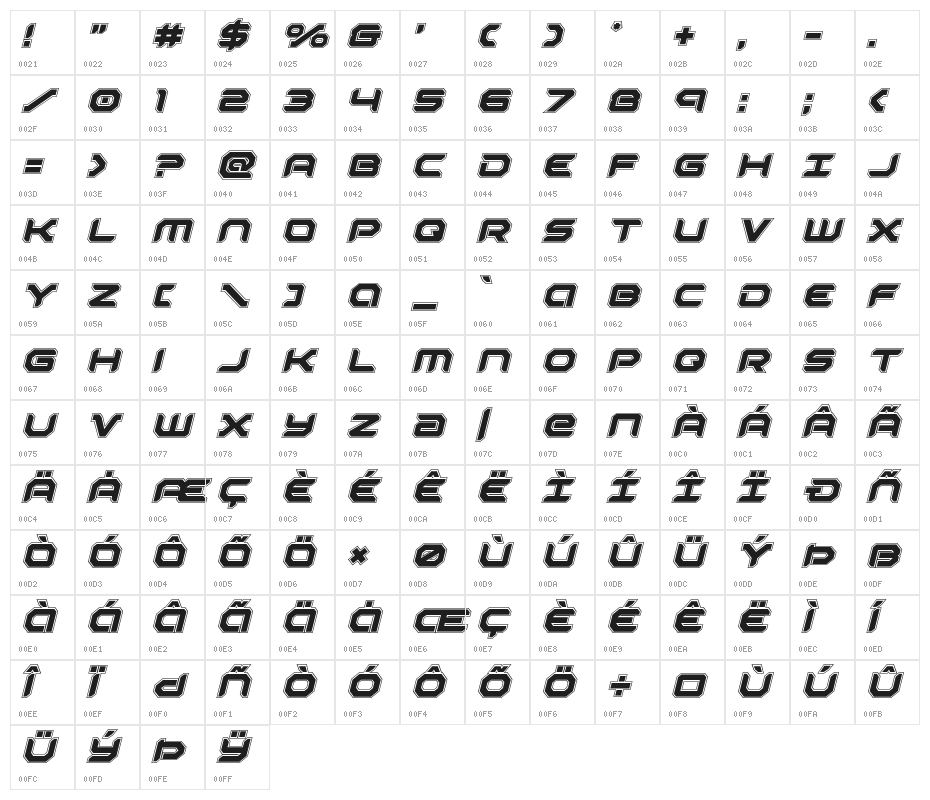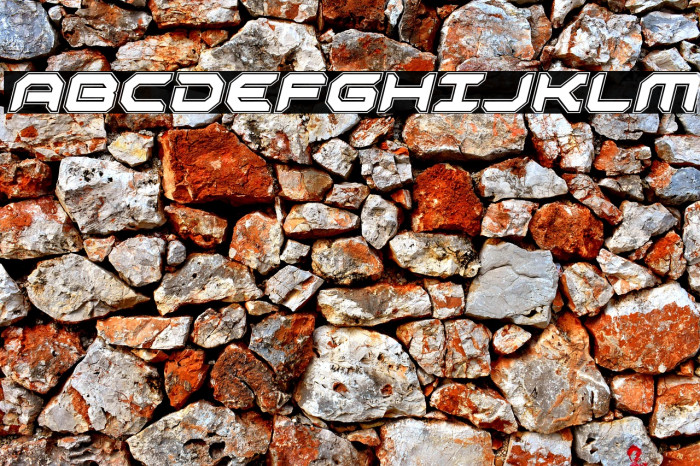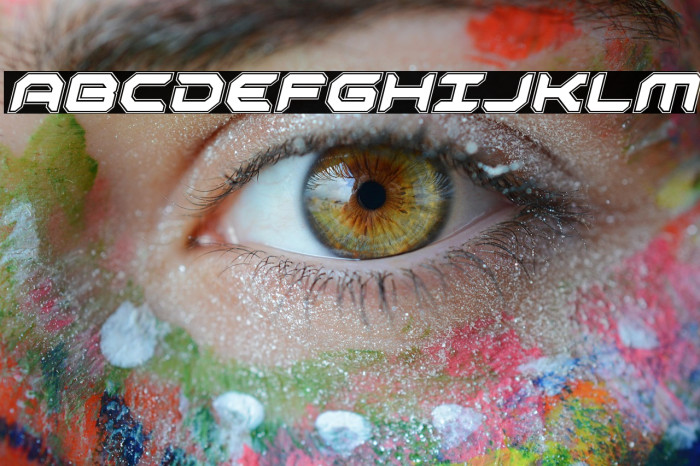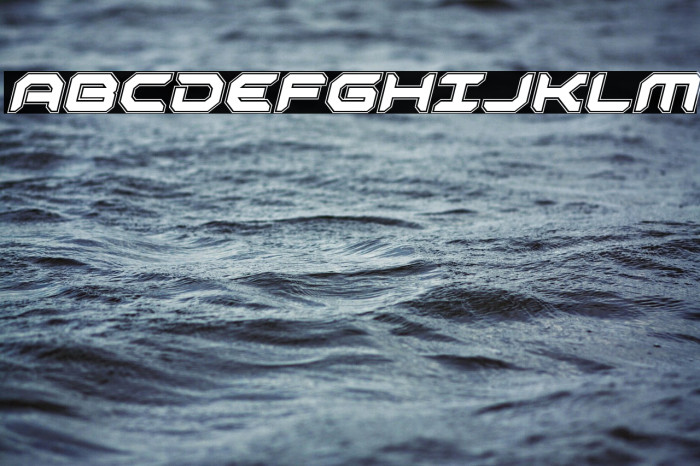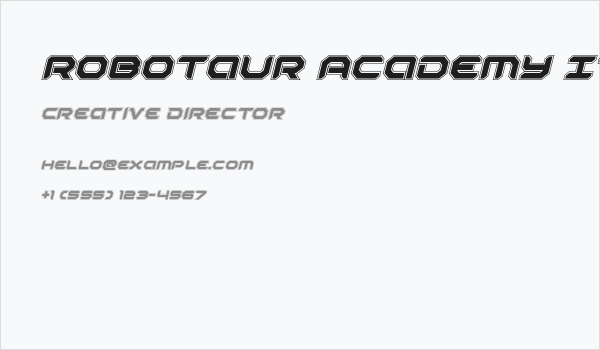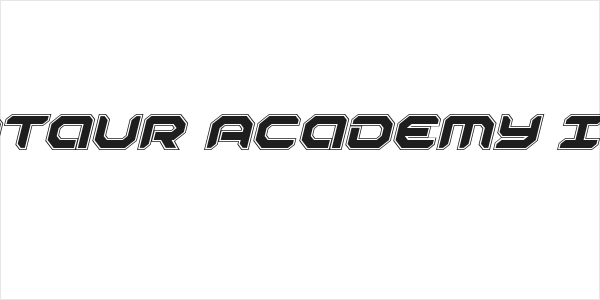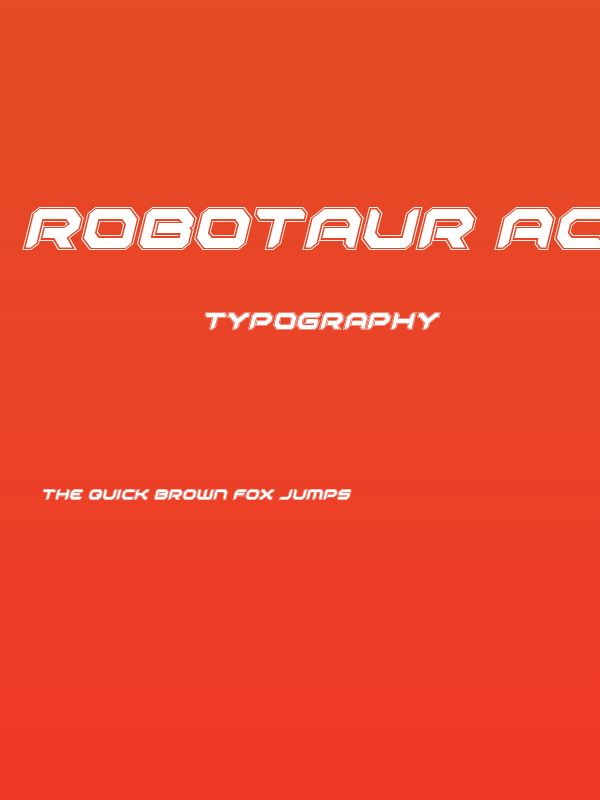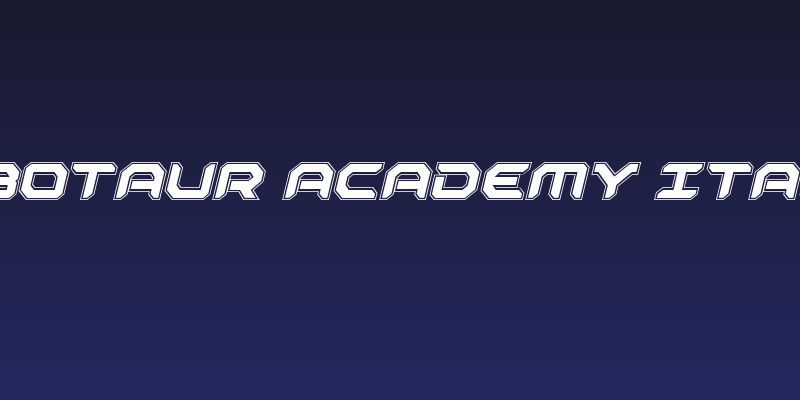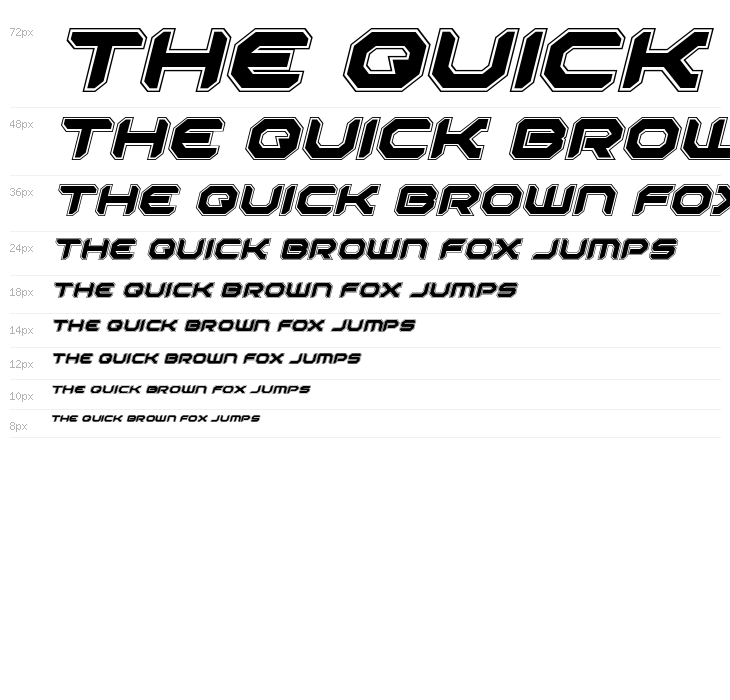
Robotaur Academy Italic Font
Robotaur Academy Italic Description
This font features a futuristic and bold design with a distinct italic slant, giving it a dynamic and forward-moving appearance. The characters are outlined with a thick border, creating a strong visual impact. Each letter and number is crafted with angular edges and geometric shapes, contributing to a modern and tech-inspired aesthetic. The font is highly stylized, making it ideal for projects that require a standout, contemporary look. Its unique style is complemented by a consistent character width, ensuring uniformity across all glyphs.
Proposed ProjectsIdeal for sci-fi themed designs, video game titles, tech branding, and futuristic posters.